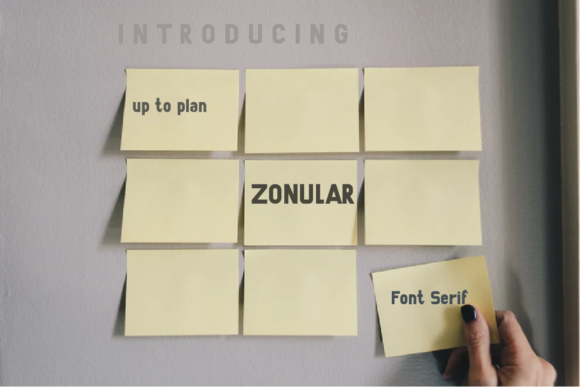
Unleash the Power of Expression with Zonular: The Ultimate Font for Channel Light Designs
In the realm of typography, Zonular emerges as a captivating display font, a visual masterpiece crafted to leave an indelible mark on your creative endeavors. With its bold and assertive presence, Zonular transcends the ordinary, transforming your designs into captivating expressions of individuality.
Step into a world where words take center stage, where every letter carries the weight of significance, and every combination ignites a symphony of visual harmony. Zonular's carefully crafted glyphs dance across the screen, commanding attention with their unwavering confidence.
Whether you're designing logos, posters, headlines, or any other project that demands impact, Zonular stands ready to elevate your creations to new heights. Its versatility knows no bounds, adapting seamlessly to a myriad of design styles and themes.
Immerse yourself in a world of boundless creativity, where Zonular becomes your trusted companion, guiding you through the labyrinth of design possibilities. Let your imagination run wild as you explore the endless combinations of colors, shapes, and textures that Zonular unlocks.
Don't settle for ordinary fonts that blend into the background. Embrace the boldness of Zonular, a font that demands attention, a font that ignites passion, a font that transforms your designs into unforgettable masterpieces.